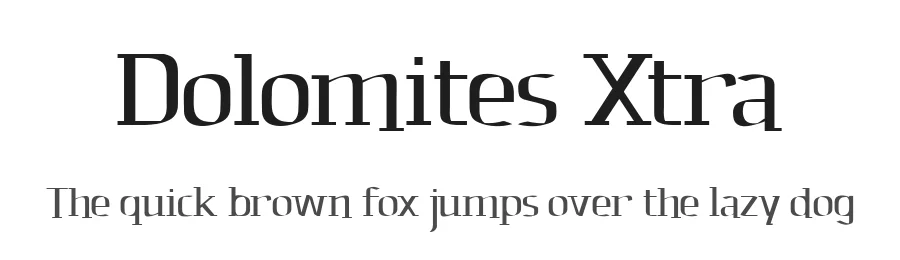
About Dolomites Font
Dolomites is a serif font designed by Murat Yegul. It includes 138 glyphs, a regular weight, TTF (TrueType) format, and 159 languages. Dolomites is free to download; check the license details on this page before commercial use. Serif fonts like Dolomites work best for body text, editorial layouts, book covers, and classic branding.
Dolomites Font is a versatile serif font that works for both headings and body text. Pair it with a contrasting sans-serif or slab serif font to add visual interest and a clear distinction between titles and body copy.
Dolomites Font
by Murat Yegul